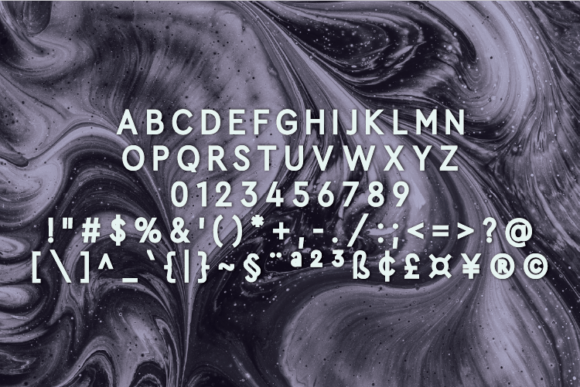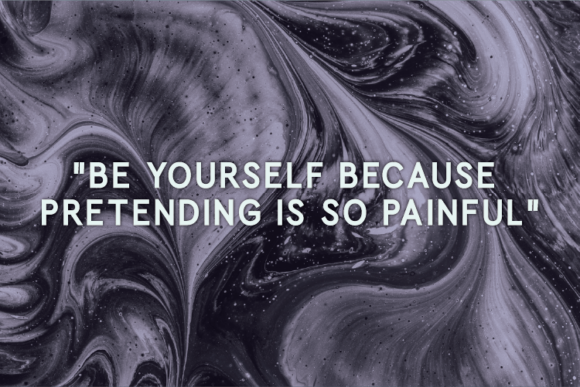
Introducing Dafonte Font: The Ultimate Bold Sans Serif for Your Creative Projects
Are you a designer, crafter, or DIY enthusiast looking for a versatile and eye-catching font to elevate your projects? Look no further than Dafonte Font, a bold sans serif font designed to complement every project you wish to create. With its sleek and modern design, Dafonte Font is perfect for a wide range of applications, from displays and headers to invitations, save the dates, weddings, and more!
What Makes Dafonte Font So Special?
Dafonte Font is a carefully crafted font that boasts a unique blend of style, sophistication, and playfulness. Its bold sans serif design makes it highly legible, even at smaller sizes, while its sleek lines and curves add a touch of elegance and refinement. Whether you’re creating a stunning display, a beautiful wedding invitation, or a catchy header, Dafonte Font is sure to make a lasting impression.
Endless Possibilities with Dafonte Font
One of the best things about Dafonte Font is its incredible versatility. This font can be used for a wide range of projects, including:
- Displays: Create eye-catching displays, posters, and flyers that grab attention and make a statement.
- Headers: Add a professional touch to your website, blog, or social media graphics with Dafonte Font’s bold and modern design.
- Invitations: Make your special occasions even more memorable with beautifully designed invitations, save the dates, and wedding announcements.
- Weddings: Dafonte Font is perfect for wedding-related projects, from elegant wedding stationery to romantic wedding websites.
- Crafting: Add a personal touch to your DIY projects, such as handmade cards, gift tags, and scrapbooking pages.
Why Choose Dafonte Font?
So why choose Dafonte Font over other fonts? Here are just a few reasons:
- Unique Design: Dafonte Font boasts a unique and distinctive design that sets it apart from other fonts.
- High Legibility: Its bold sans serif design makes it highly legible, even at smaller sizes.
- Versatility: Dafonte Font can be used for a wide range of projects, from displays and headers to invitations and crafting.
Tips for Using Dafonte Font
To get the most out of Dafonte Font, here are a few tips:
- Experiment with Sizes: Dafonte Font looks great at a range of sizes, from small and delicate to large and bold.
- Play with Colors: Dafonte Font works well with a wide range of colors, from bright and bold to soft and pastel.
- Mix and Match: Try pairing Dafonte Font with other fonts to create a unique and eye-catching combination.